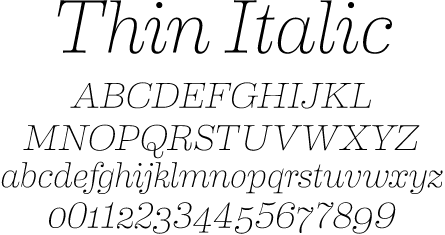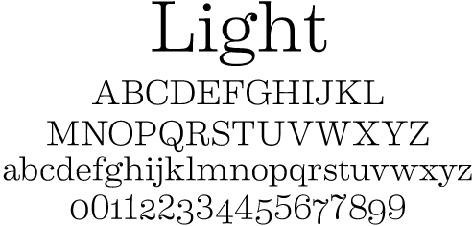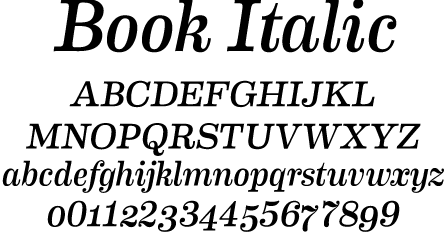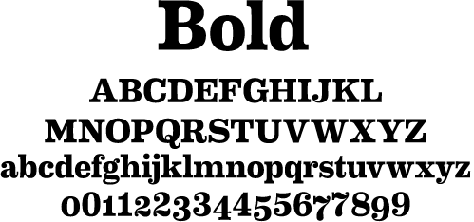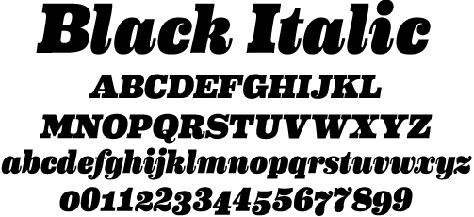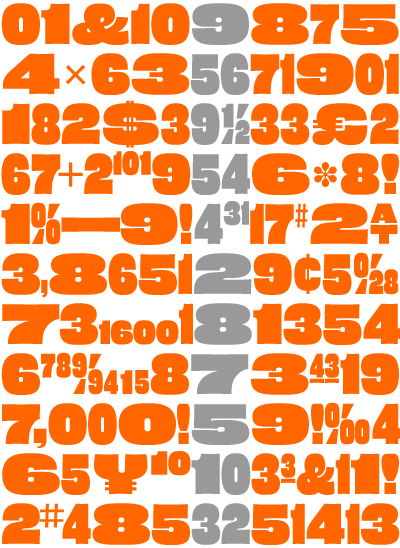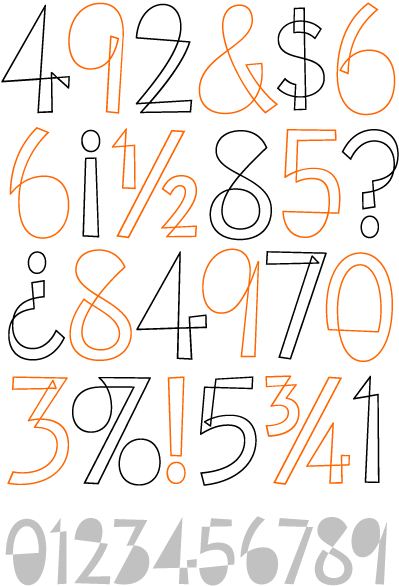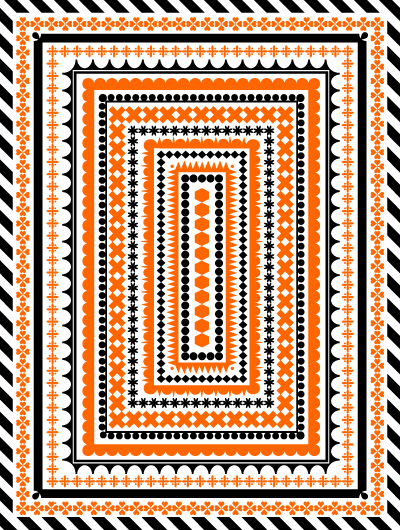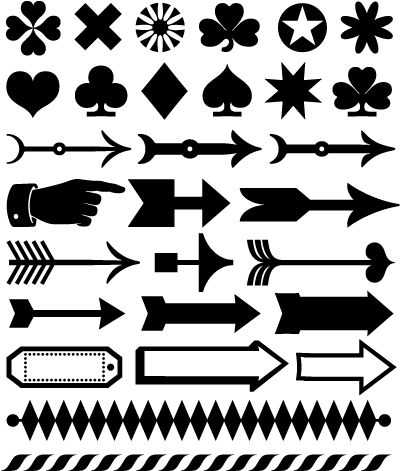
Eames Century Modern Is Extraordinary Font Family
House Industries’ Eames Century Modern ($275) is a typographic workhorse that honors the Eames aesthetic while offering unprecedented functionality. An eighteen-style serif typeface family strikes an unprecedented balance between distinctive idiosyncrasies, readability and space economy. Its 18 styles include gracefully complementary italics and a virtually endless supply of deep text handling features. Carefully weighted small caps, nine different figure styles, ligatures, contextual alternate forms and thousands of lines of computer code give Eames Century Modern a significant edge in contemporary design environments. A stencil font on the heaviest weight of Eames Century Modern takes the curvature of bent plywood and abstracts the shapes into type.
In a nod to Charles and Ray’s infatuation with circus imagery, we penned three elephantine numeral fonts whose woodcut-inspired forms leave a tastefully pachydermic impact on any layout. Fanciful figures from Ray’s January and December 1943 Arts and Architecture covers were the impetus for a more delicate set of numbers. All four figure sets boast a rich array of currency symbols, punctuation and a sophisticated fraction feature.
The Eames’ pragmatism was always tempered with their love of adornment, so this collection would not be complete without a host of carefully drawn ornaments and a galley of frames. These elements are sure to provide dignified directional stability and exquisitely cultivated closure to any design project.